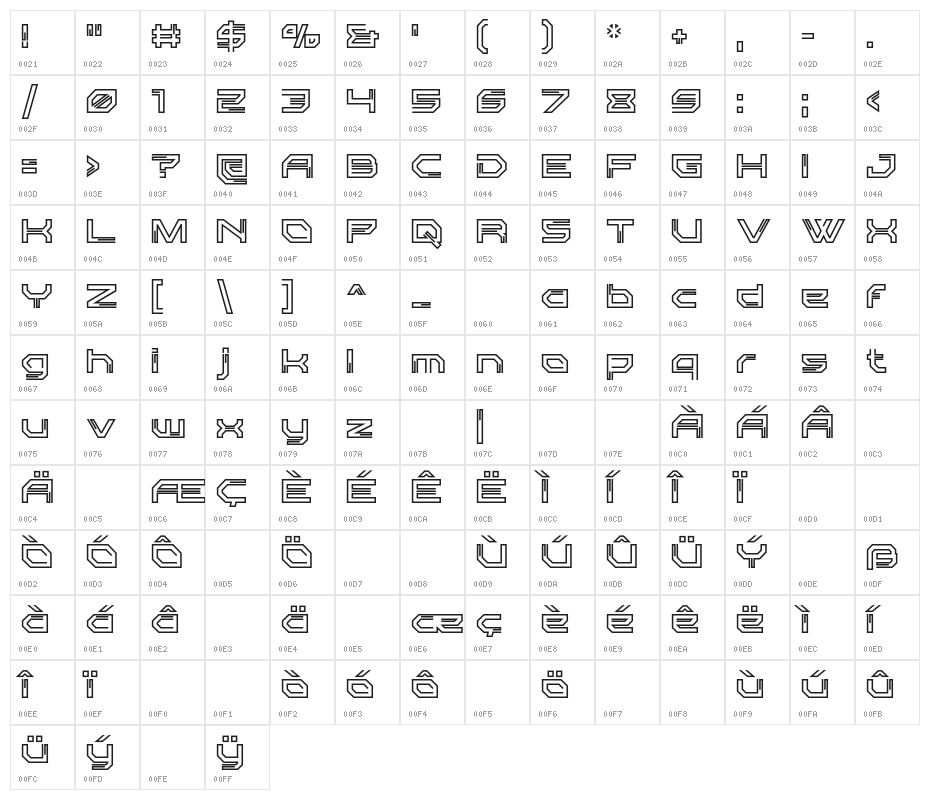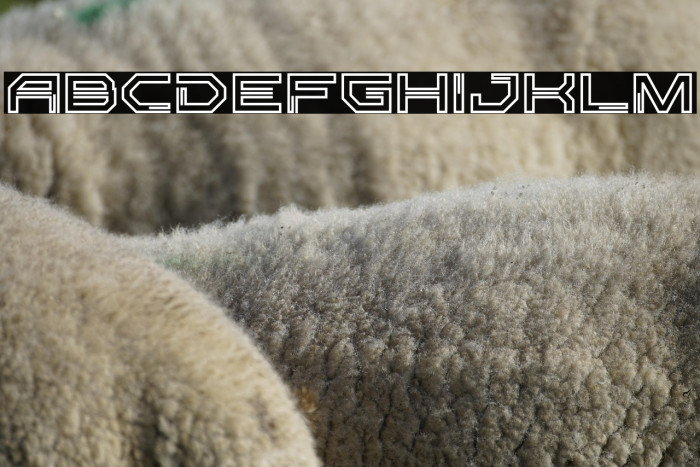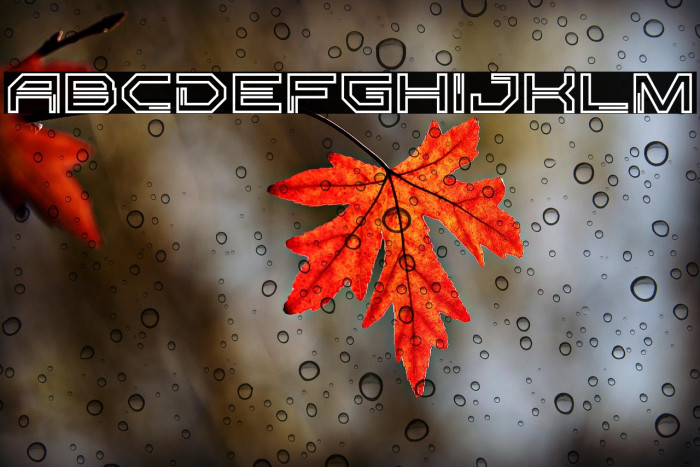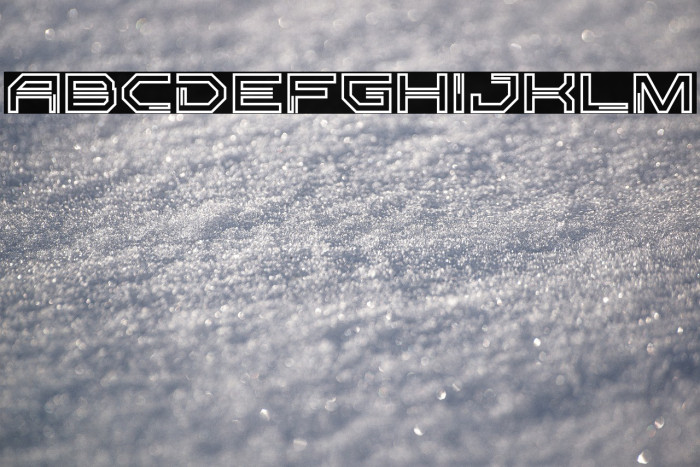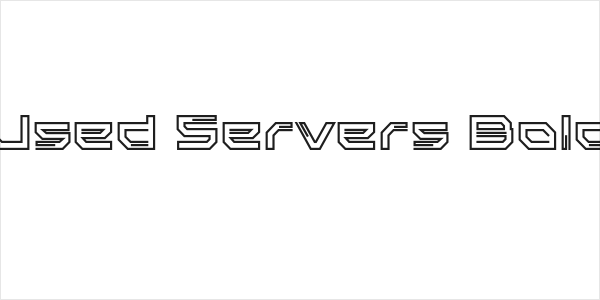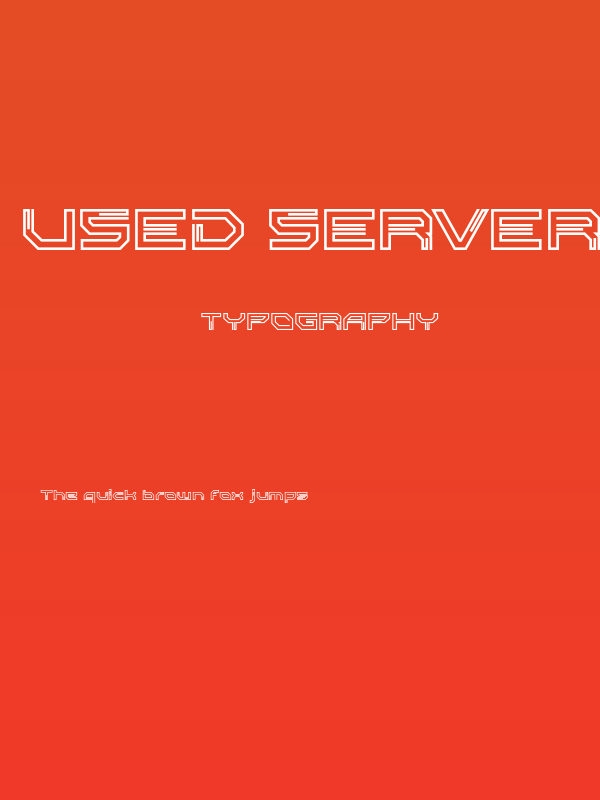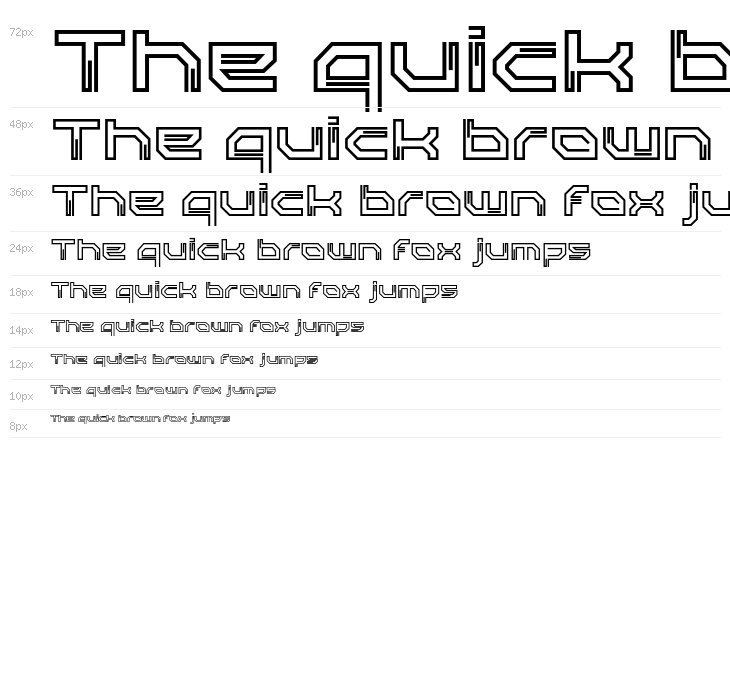
Used Servers Bold Font
Used Servers Bold Description
This font features a futuristic and geometric design, characterized by its bold, outlined letters with a distinct three-dimensional effect. The uppercase and lowercase letters maintain a consistent style, with sharp angles and clean lines that create a sense of depth and structure. The numerals and special characters follow the same design principles, ensuring a cohesive look across all glyphs. The font's unique style makes it stand out, suitable for projects that require a modern and tech-inspired aesthetic. Its boldness and clarity make it ideal for attention-grabbing headlines and titles.